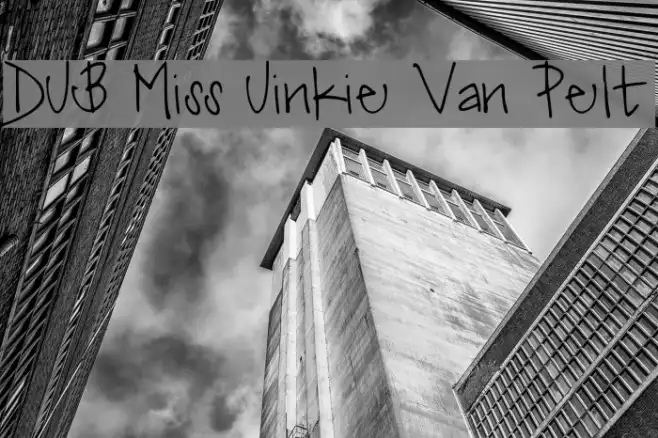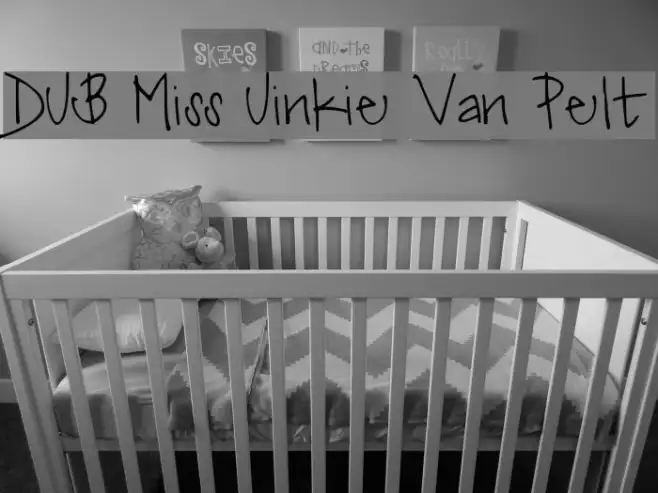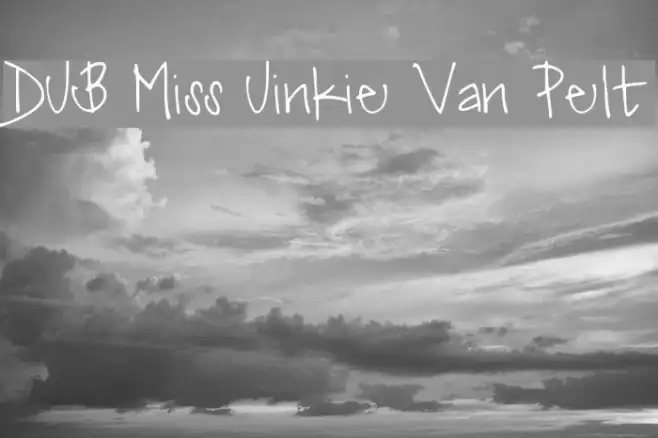
DJB Miss Jinkie Van Pelt Font
DJB Miss Jinkie Van Pelt Description
This font exudes a playful and casual handwritten style, characterized by its loose, flowing strokes and slightly uneven baseline. The letters vary in height and angle, giving it an authentic, hand-drawn appearance. The uppercase letters are tall and narrow, while the lowercase letters are more rounded and open. Numbers and special characters maintain the same whimsical style, ensuring consistency across all elements. The overall look is informal and friendly, making it ideal for projects that require a personal touch.
Overall StyleCasual, Playful
Use CaseLogos, Invitations, Greeting Cards
Proposed ProjectsIdeal for greeting cards, personal invitations, children's books, and casual branding projects.